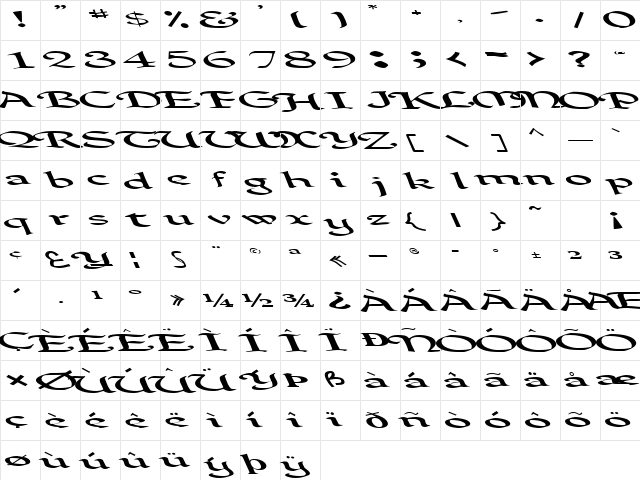
DevotedWorship107 Regular Font Preview
DevotedWorship107 Regular
Design Context for DevotedWorship107 Typeface
DevotedWorship107 is a composed and adaptable typeface that performs quietly and consistently across a wide range of design contexts.